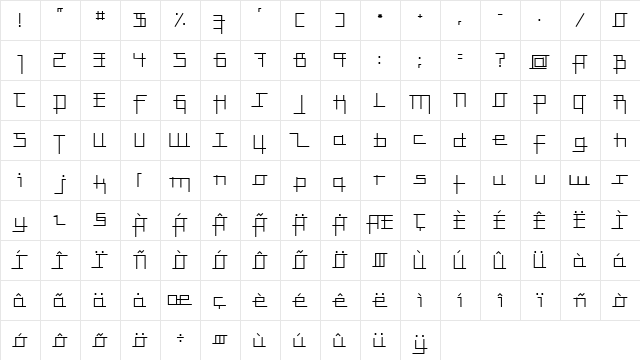
TG Mondria Ligh
| Foundry | Linotype Library GmbH |
| Designer | Michael Parson |
Design Context for TG Mondria Typeface
TG Mondria is a composed and adaptable typeface that performs quietly and consistently across a wide range of design contexts.